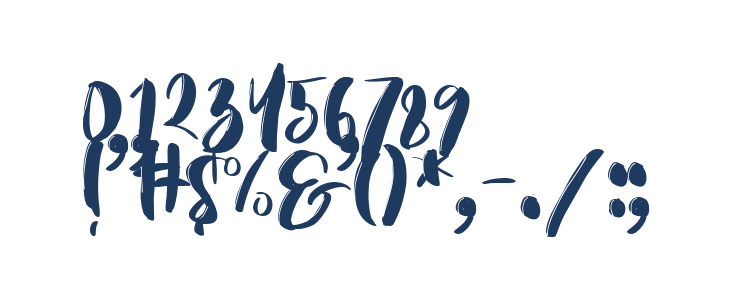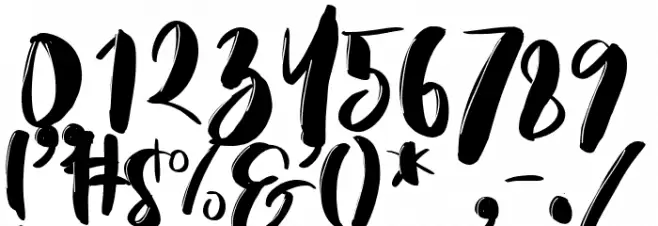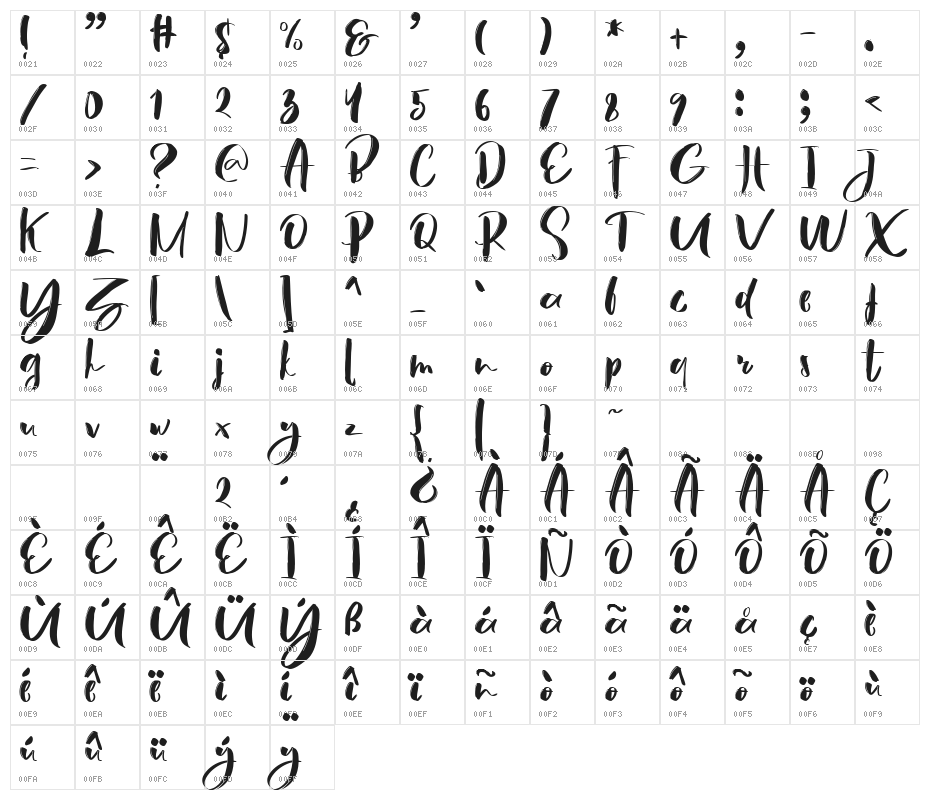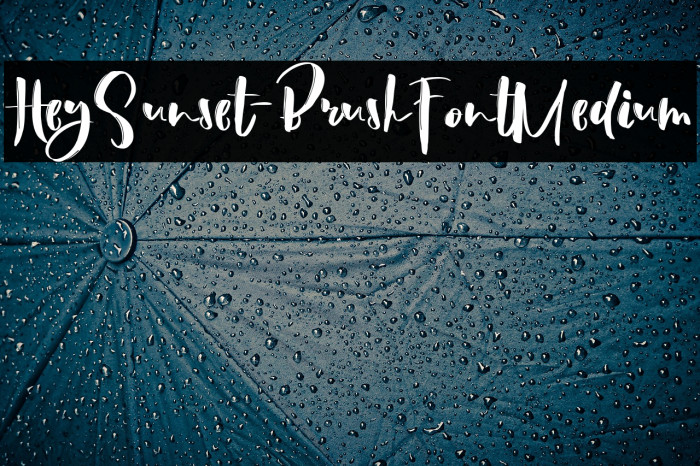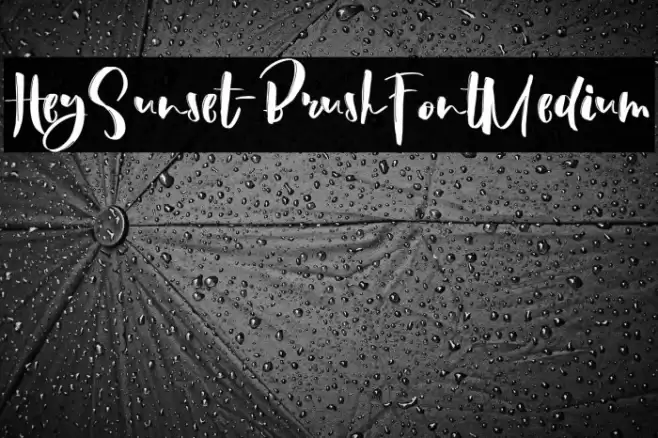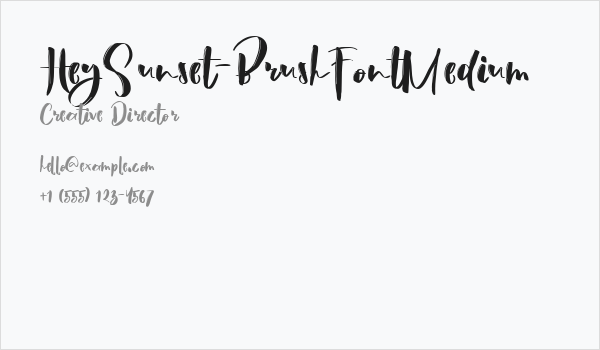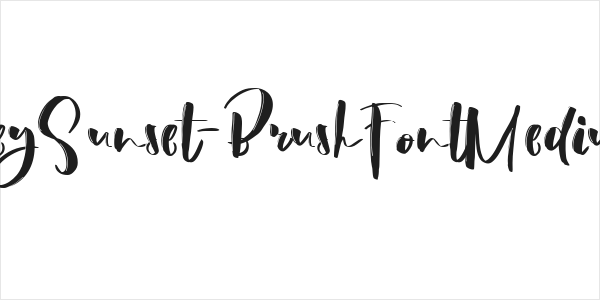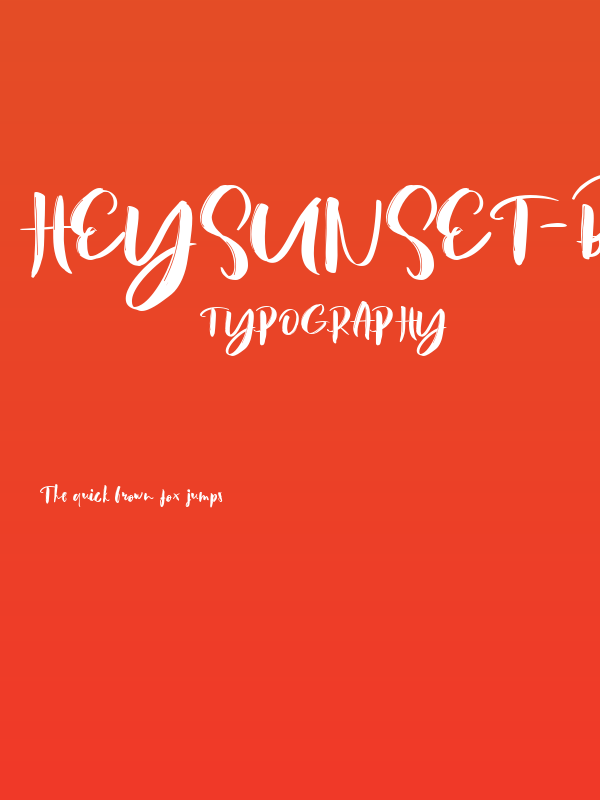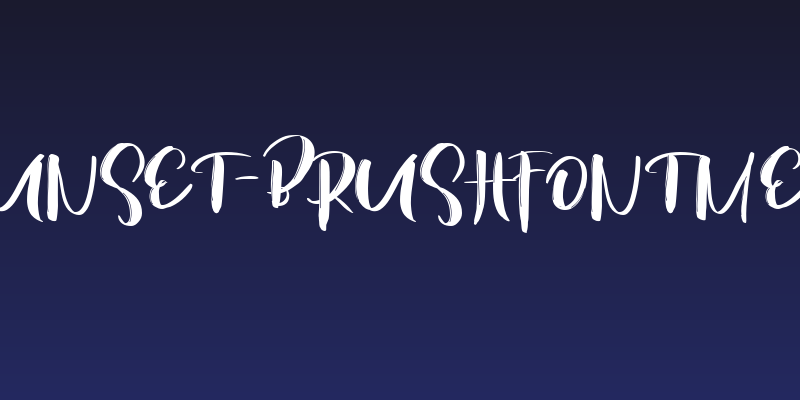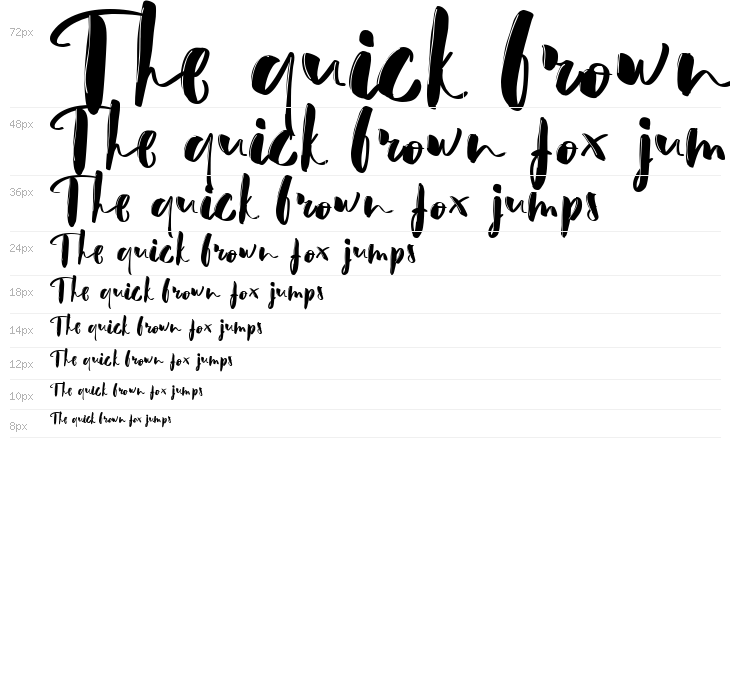
HeySunset-BrushFontMedium Font
HeySunset-BrushFontMedium Description
This brush font exudes a lively and dynamic energy, characterized by its bold and expressive strokes. The letters are crafted with a natural, hand-painted look, giving each character a unique and artistic flair. The uppercase letters are tall and commanding, while the lowercase letters maintain a fluid and cohesive flow. Numbers and special characters are equally expressive, adding to the font's versatility. The overall appearance is both modern and artistic, making it suitable for creative and eye-catching designs.
| Proposed Projects | Ideal for branding projects, poster designs, social media graphics, and any creative work that requires a bold, artistic touch. |